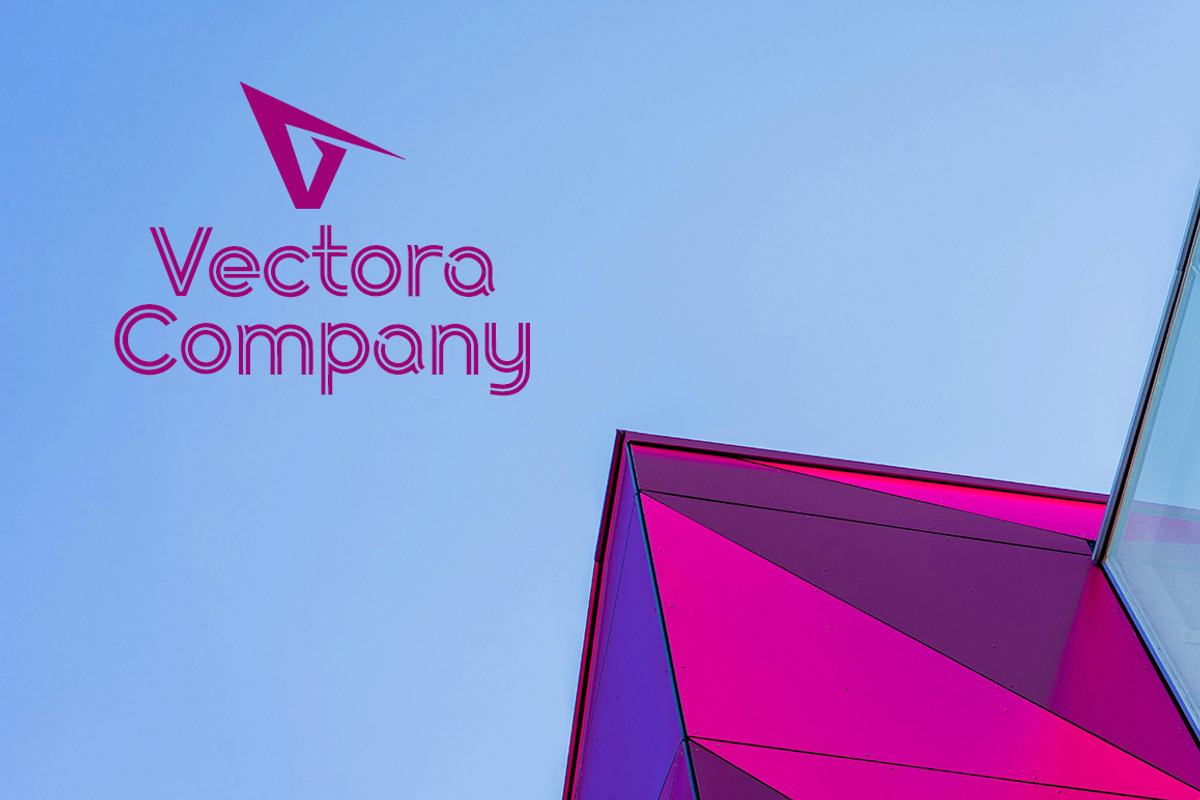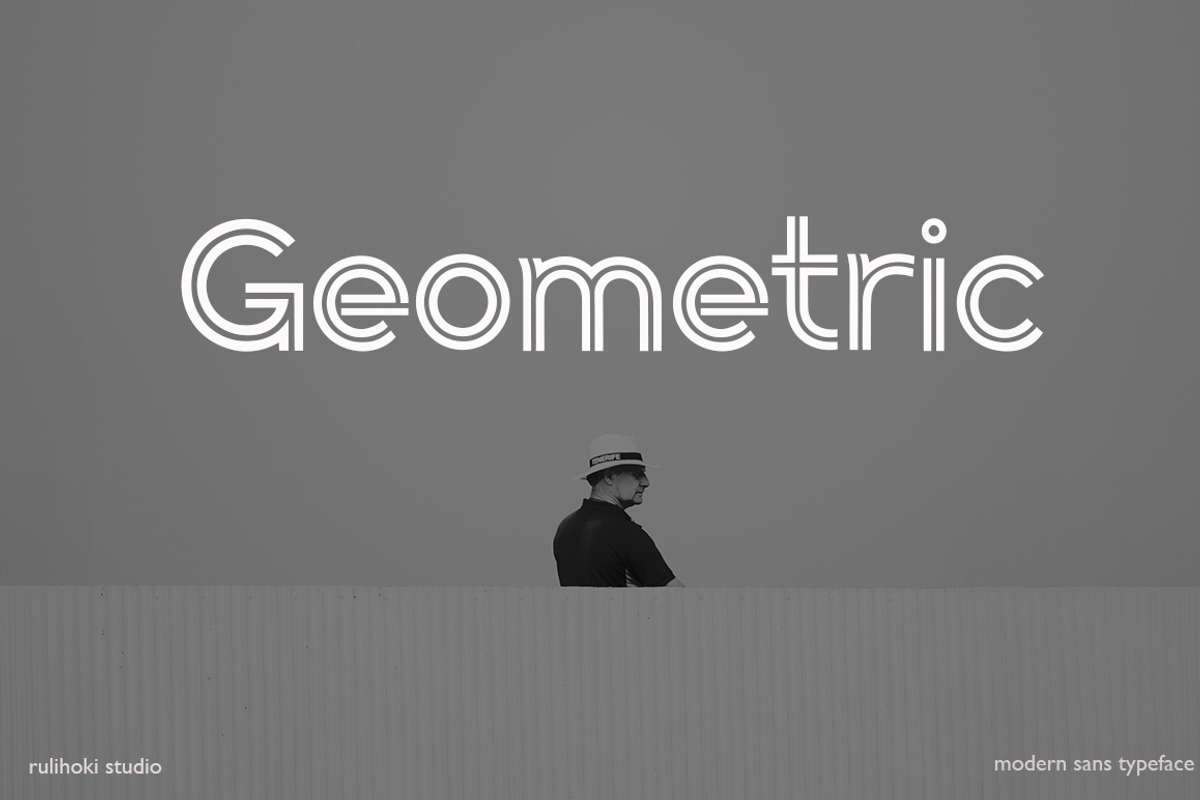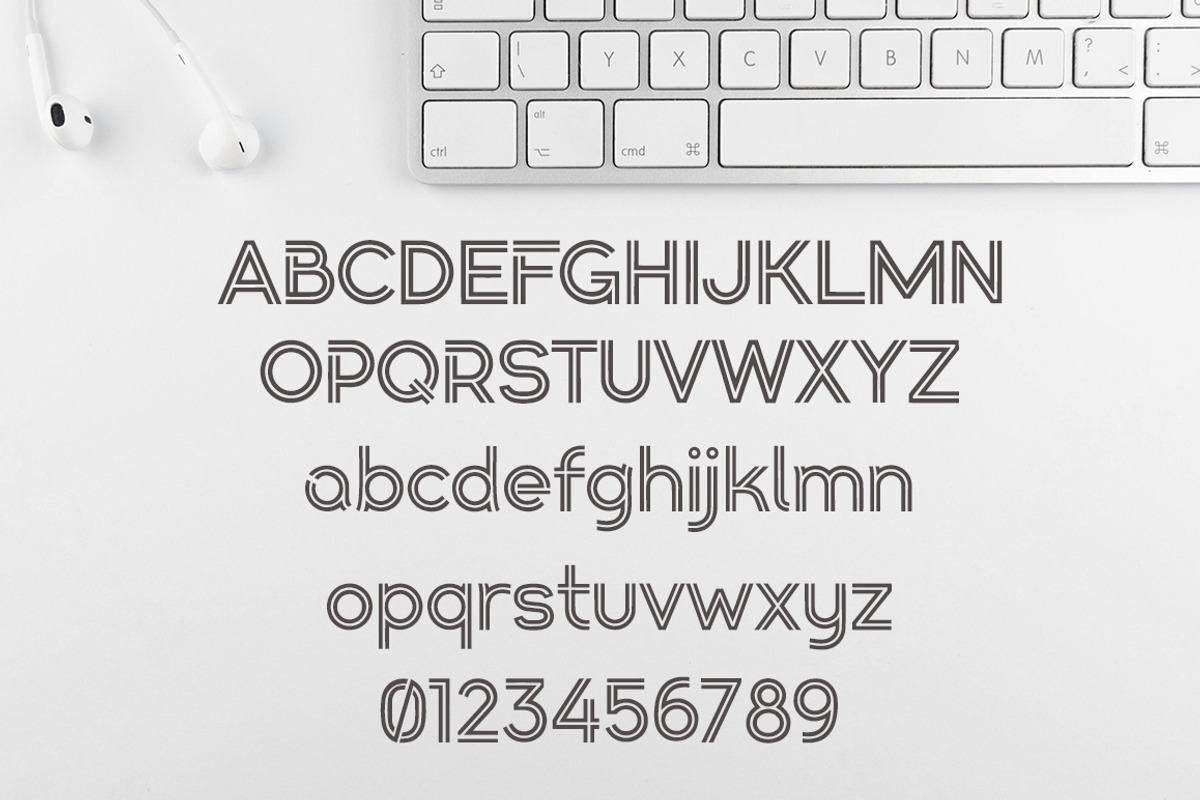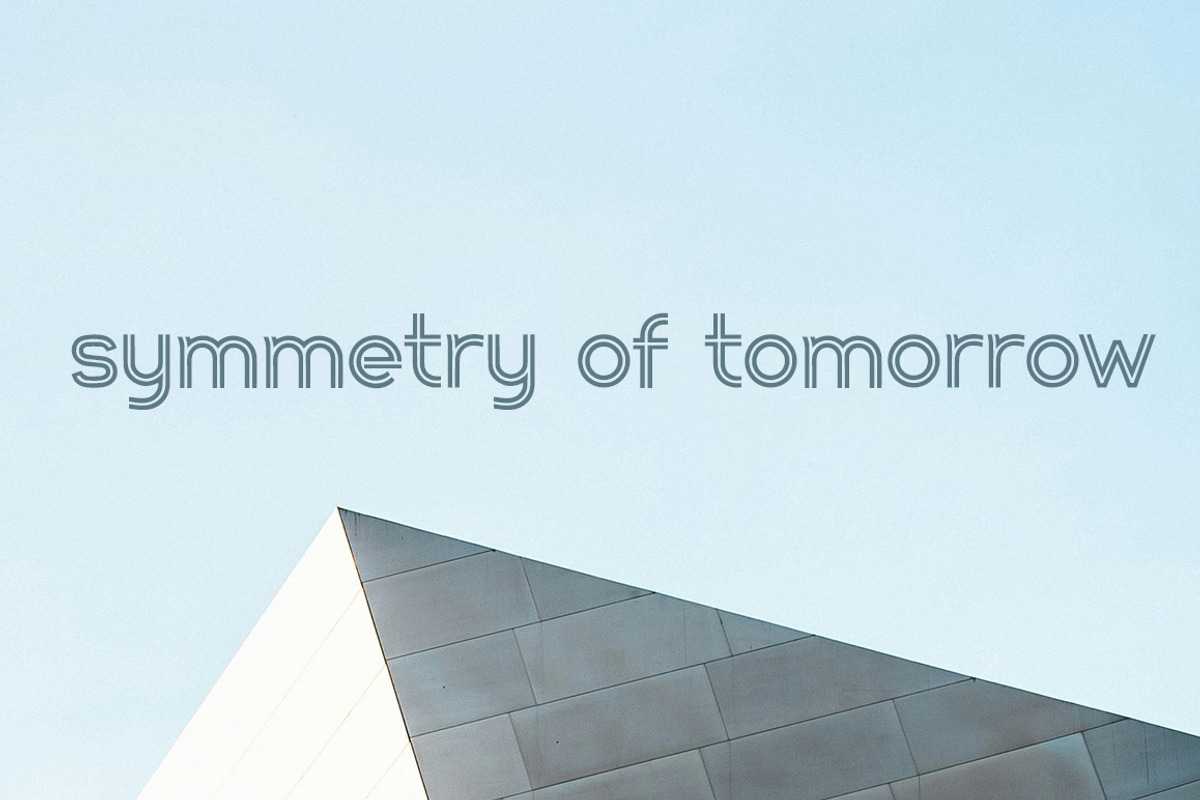
Geometric
If you love geometric shapes, symmetrical compositions, and linear designs, I recommend the Geometric font. I created it with love, soul, and understanding of your project's shortcomings, so this font is sure to be useful for you.
I was inspired by geometric architecture. I'm sure this font will be a perfect addition to your font collection. Try creating logos, monograms, posters, product branding, and even modern lettering with the help of "Geometric" You'll find different accents.